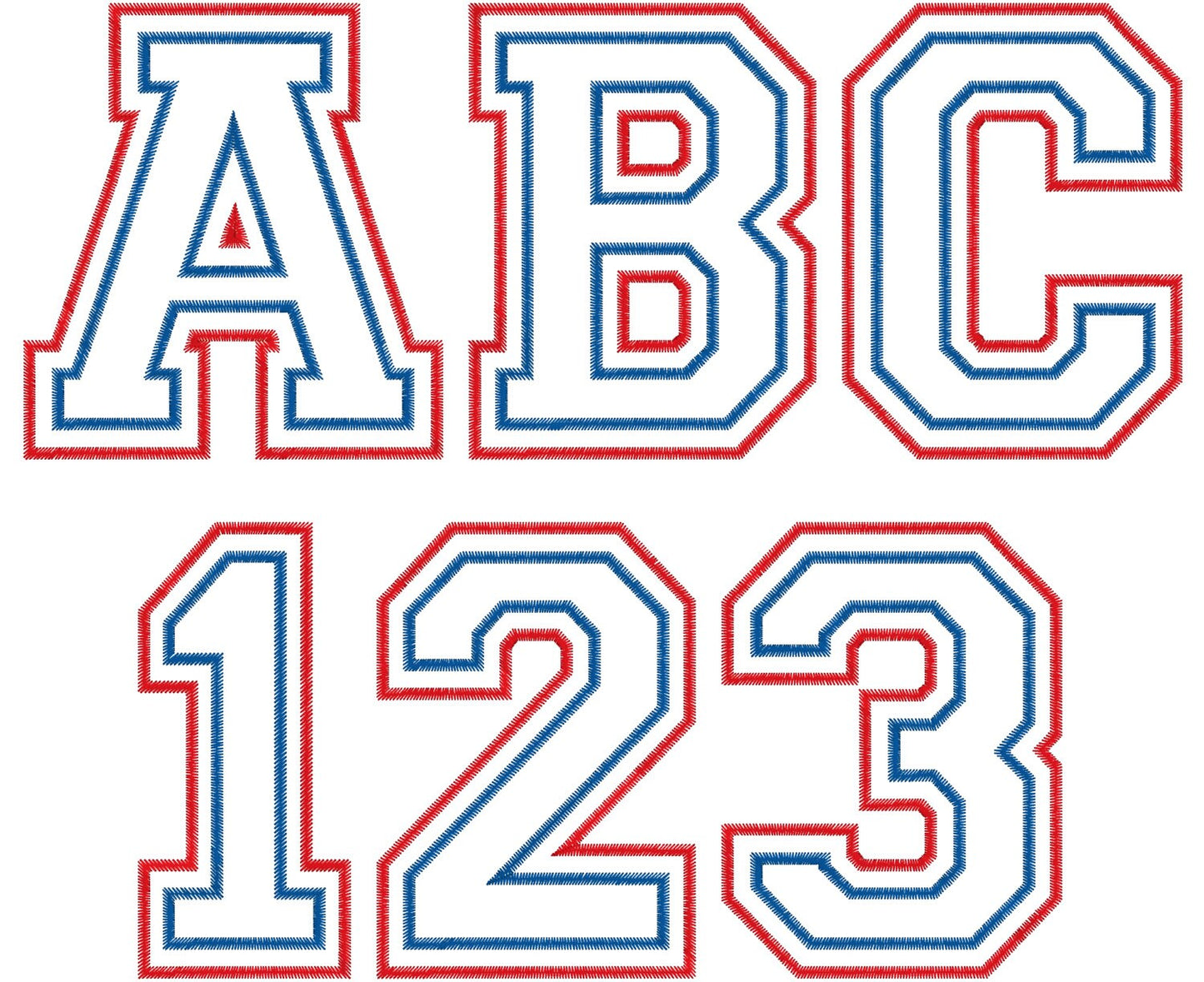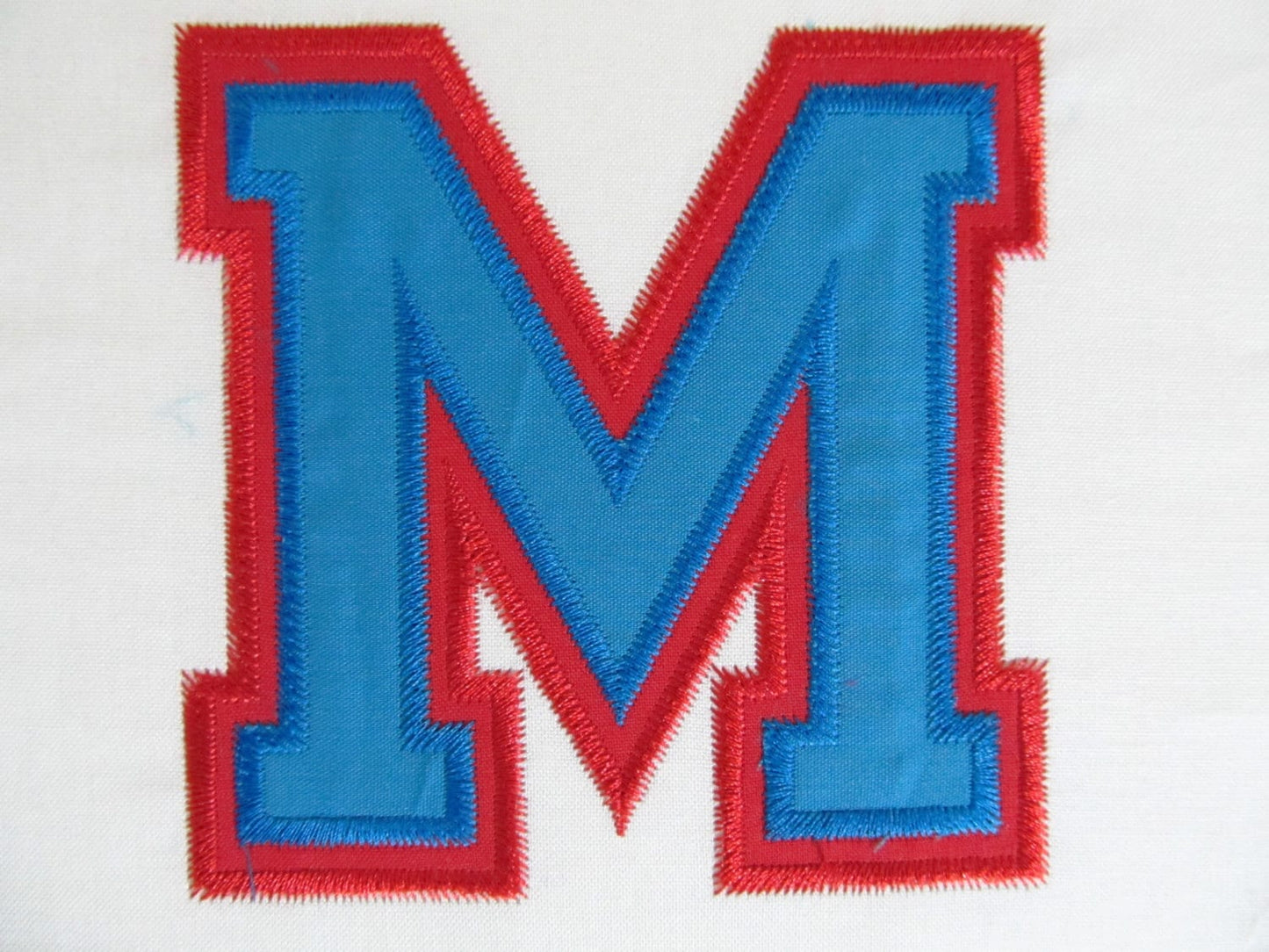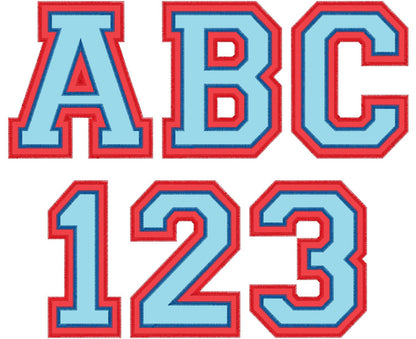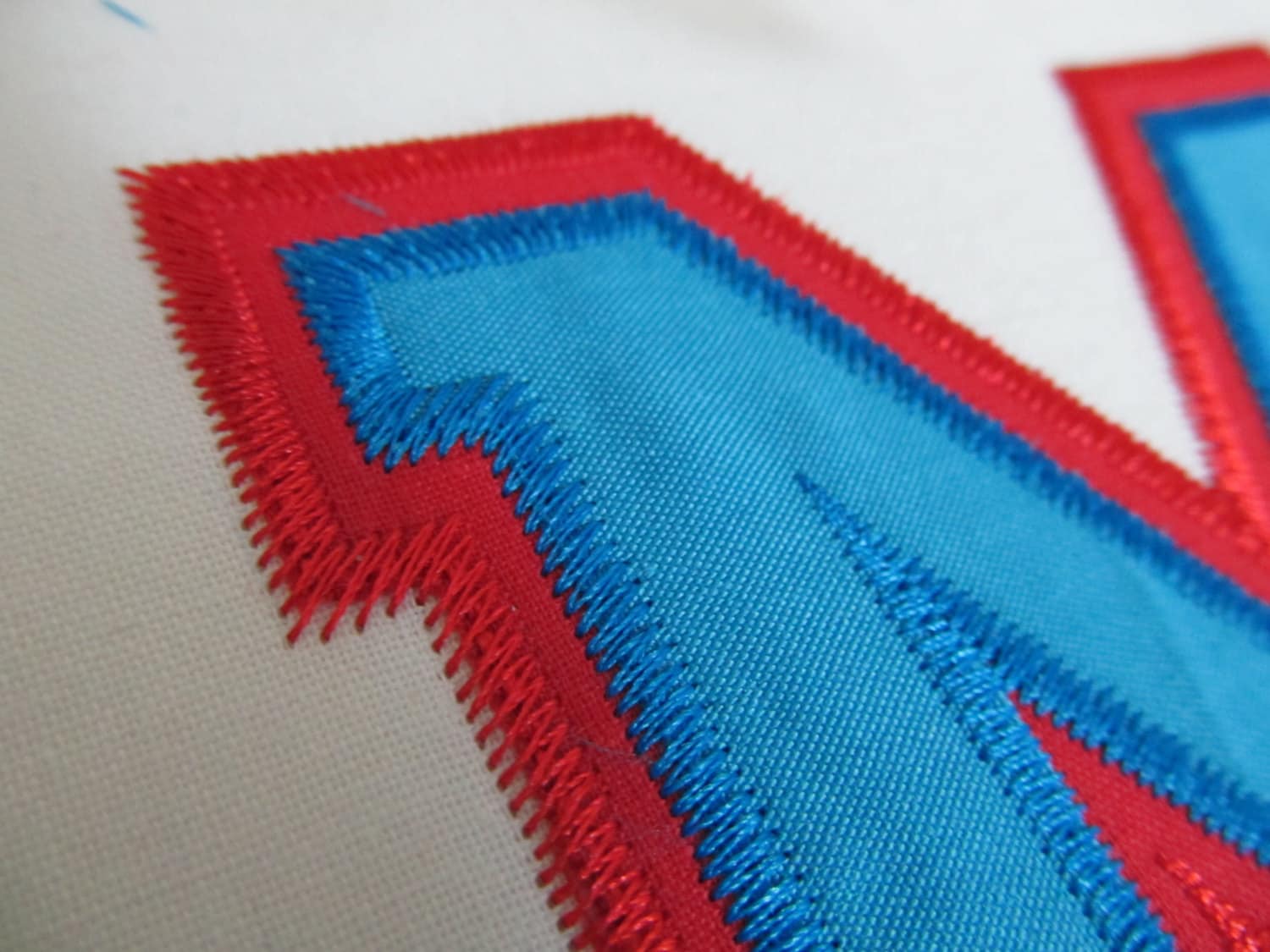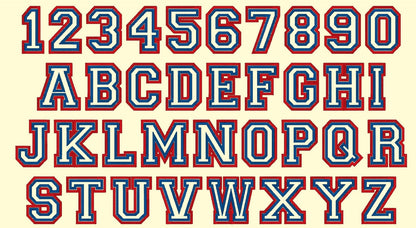
Or click to open the linkA double applique athletic font with a zigzag outline. Made for team shirts, jerseys, hoodies and letterman jackets.
Uppercase letters A to Z and numbers 0 to 9. Seven sizes: 3, 3.5, 4, 4.5, 5, 6 and 7 inches. Two applique layers give a double outline.